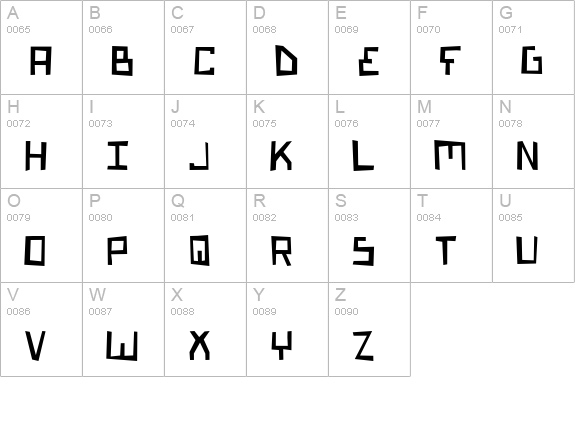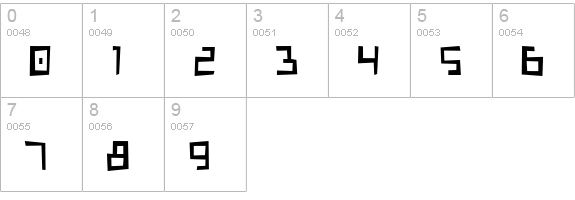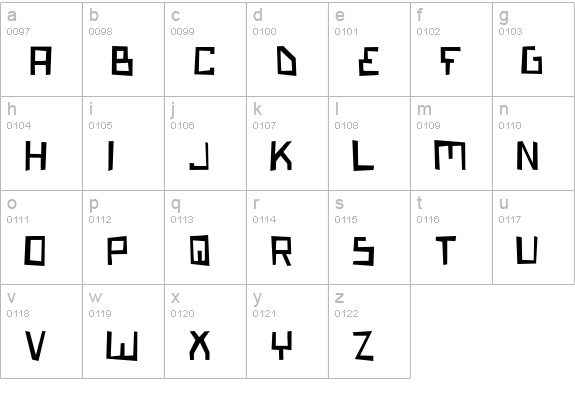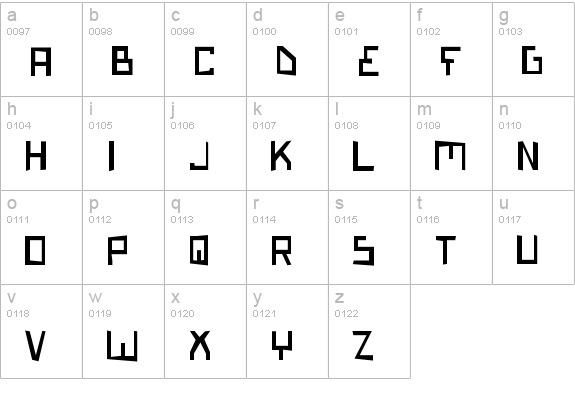
Bionic Type Malfunction Font Details
Bionic Type Malfunction font is a futuristic and edgy typeface that exudes a sense of technological advancement and innovation. With its sleek lines and intricate details, this font is perfect for projects that require a modern and cutting-edge aesthetic. The unique design of Bionic Type Malfunction font gives it a distinct and eye-catching appearance that will make your text stand out. What sets Bionic Type Malfunction font apart is its ability to seamlessly blend both organic and mechanical elements, creating a harmonious fusion of nature and technology. This font is versatile and can be used for a wide range of design projects, from posters and logos to websites and social media graphics. One of the best things about Bionic Type Malfunction font is that it is available for free download at FontsMarket.com. This means that you can easily access and use this font in your projects without any cost. So why wait? Add a touch of futuristic flair to your designs with Bionic Type Malfunction font today!